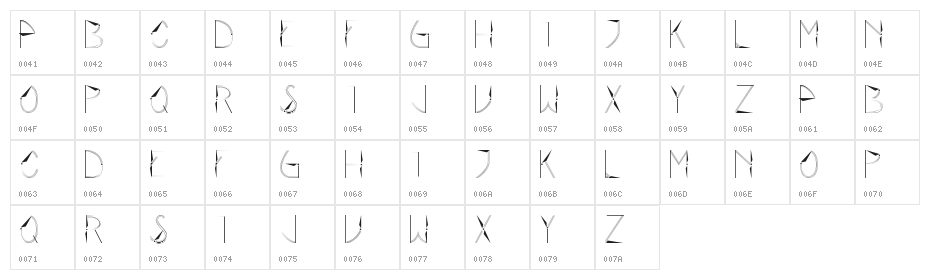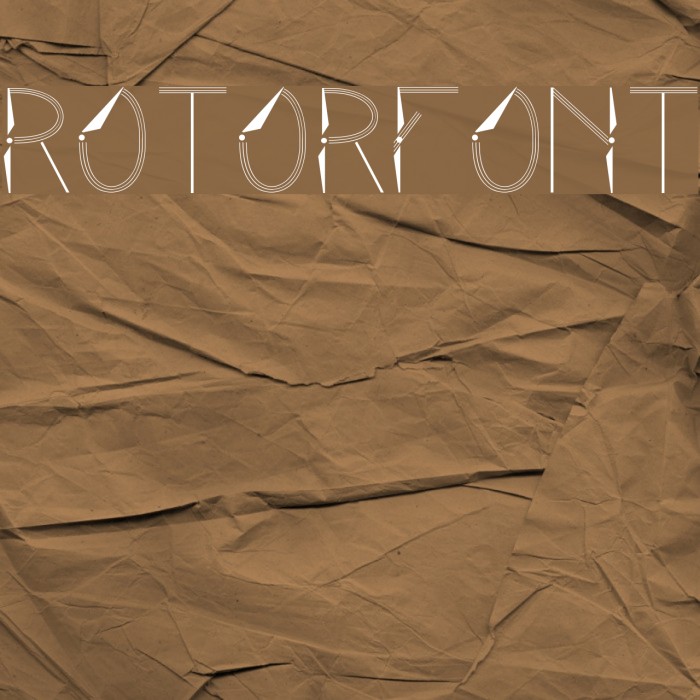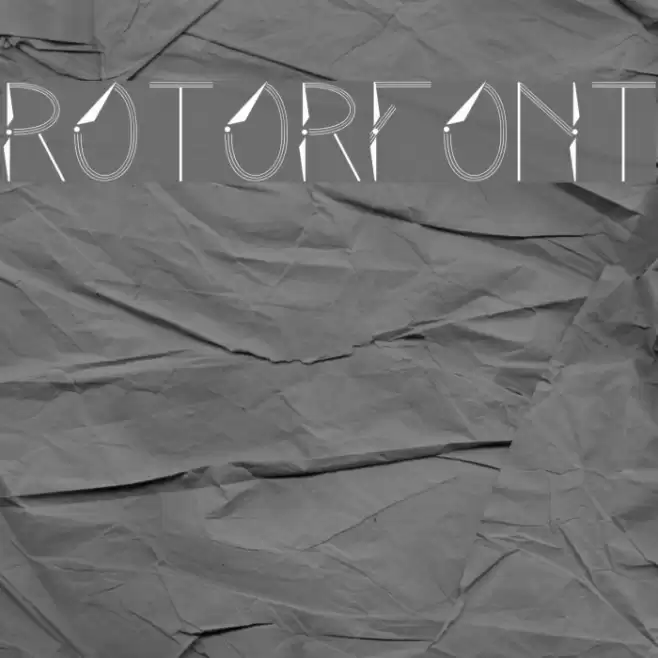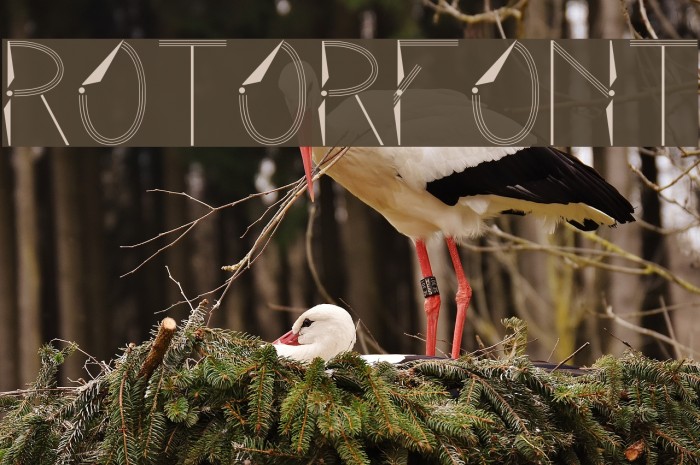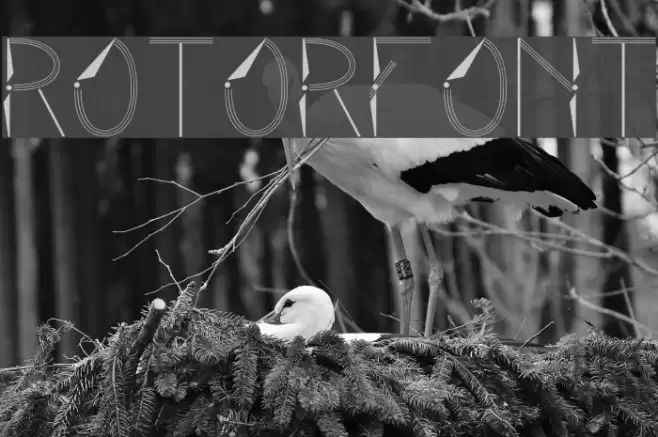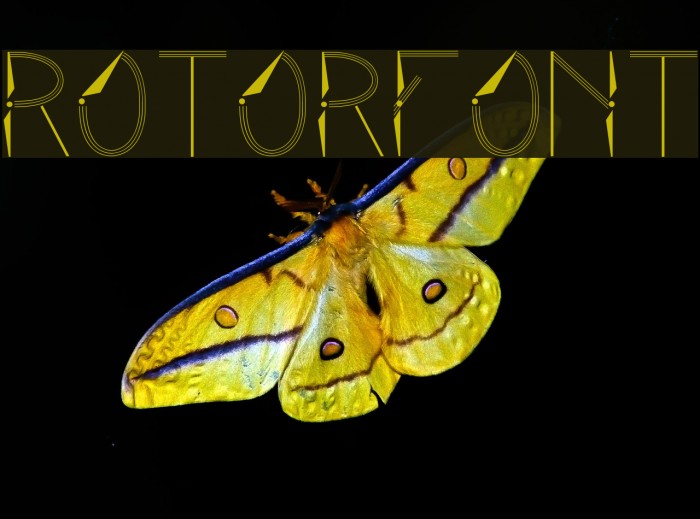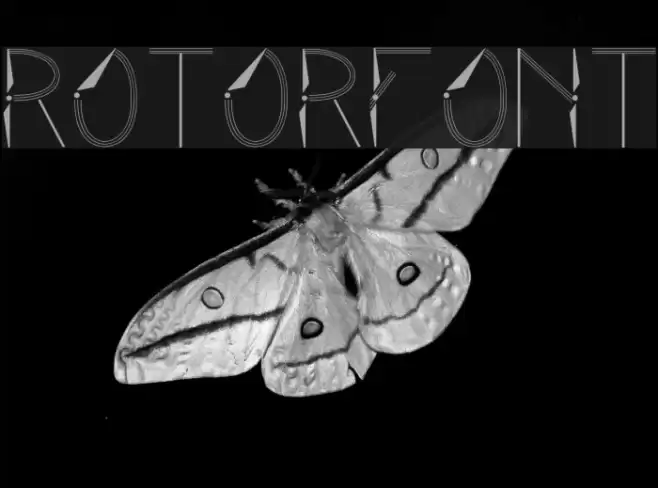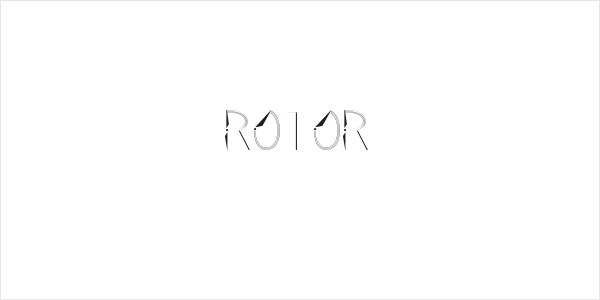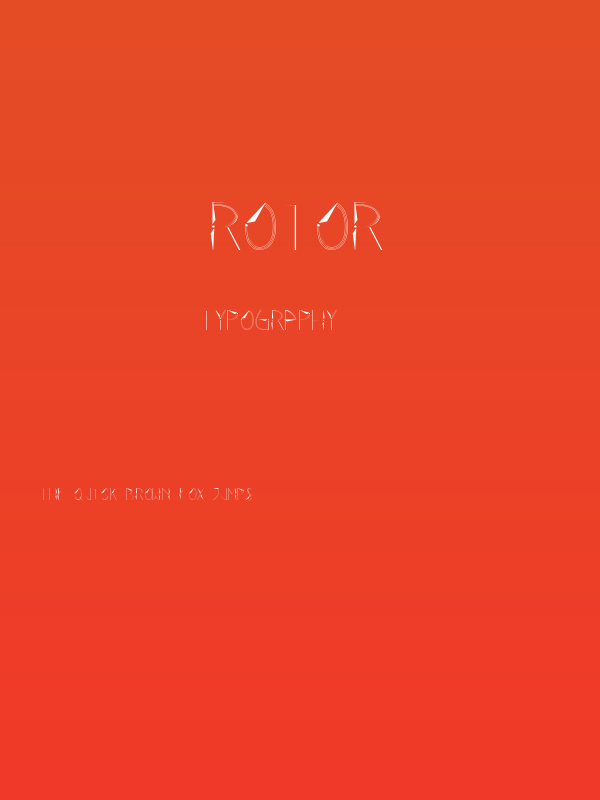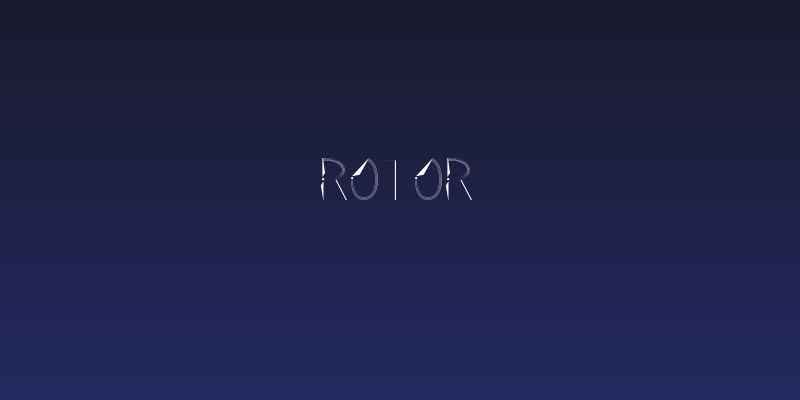
Rotor Font
Rotor Description
This font features a unique and modern design with a mechanical and industrial aesthetic. Each character is constructed with a combination of thin lines and bold geometric shapes, creating a dynamic and futuristic appearance. The letters are composed of angular elements that resemble rotor blades, giving the font a sense of movement and energy. The overall design is clean and precise, with a high level of detail in the line work. This font is perfect for projects that require a contemporary and innovative look, such as technology branding, modern art installations, or futuristic-themed events.
Use CaseLogos, Headlines
Proposed ProjectsIdeal for technology branding, modern art installations, and futuristic-themed events.